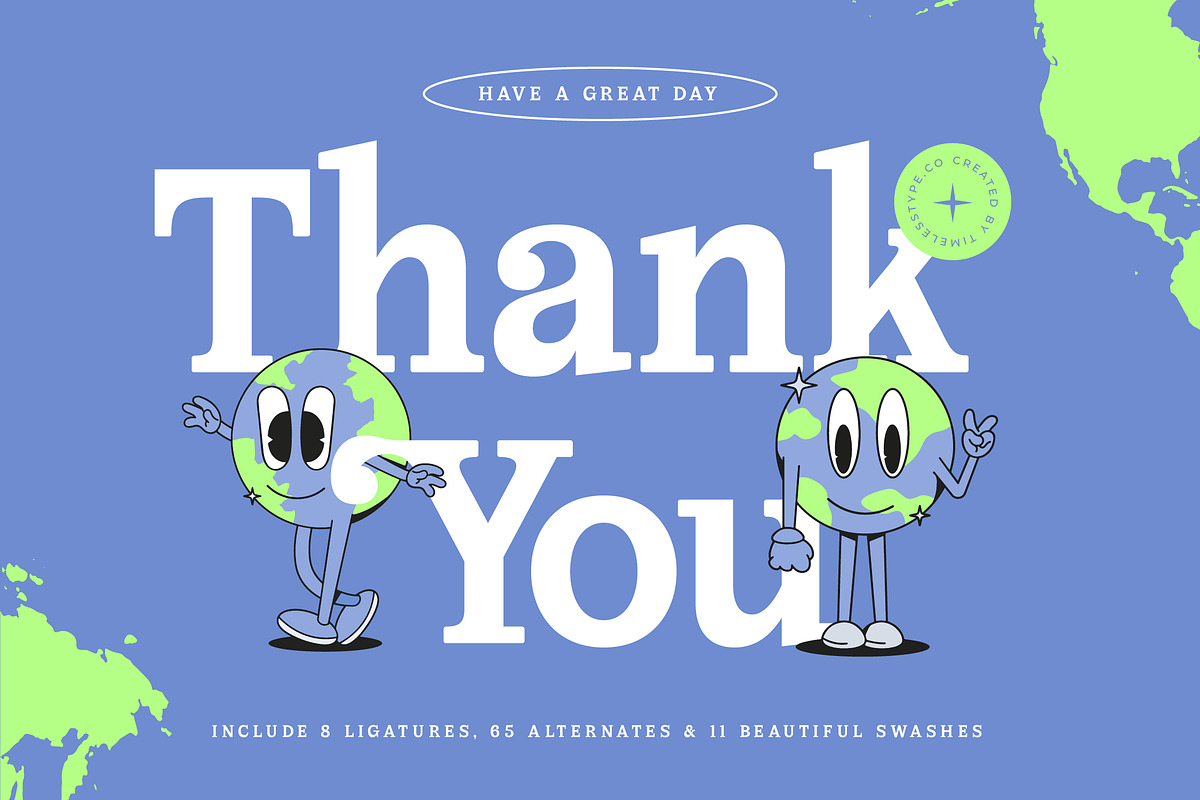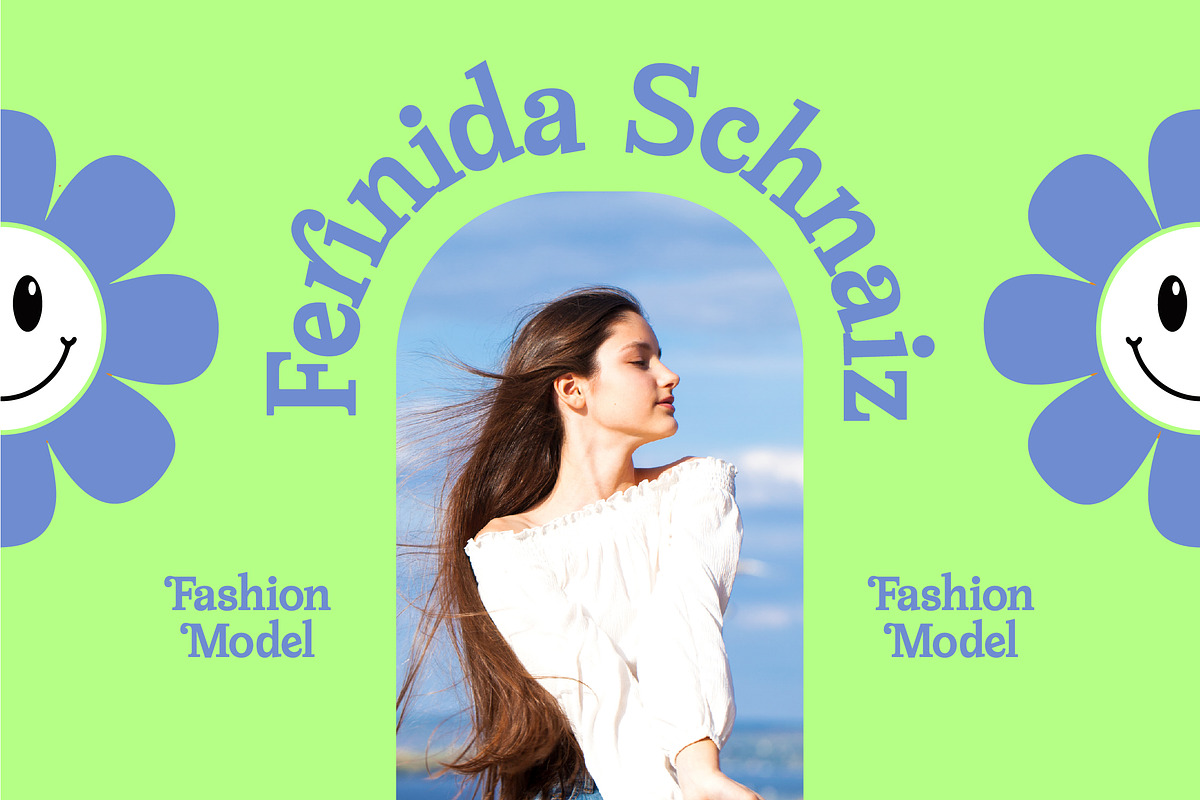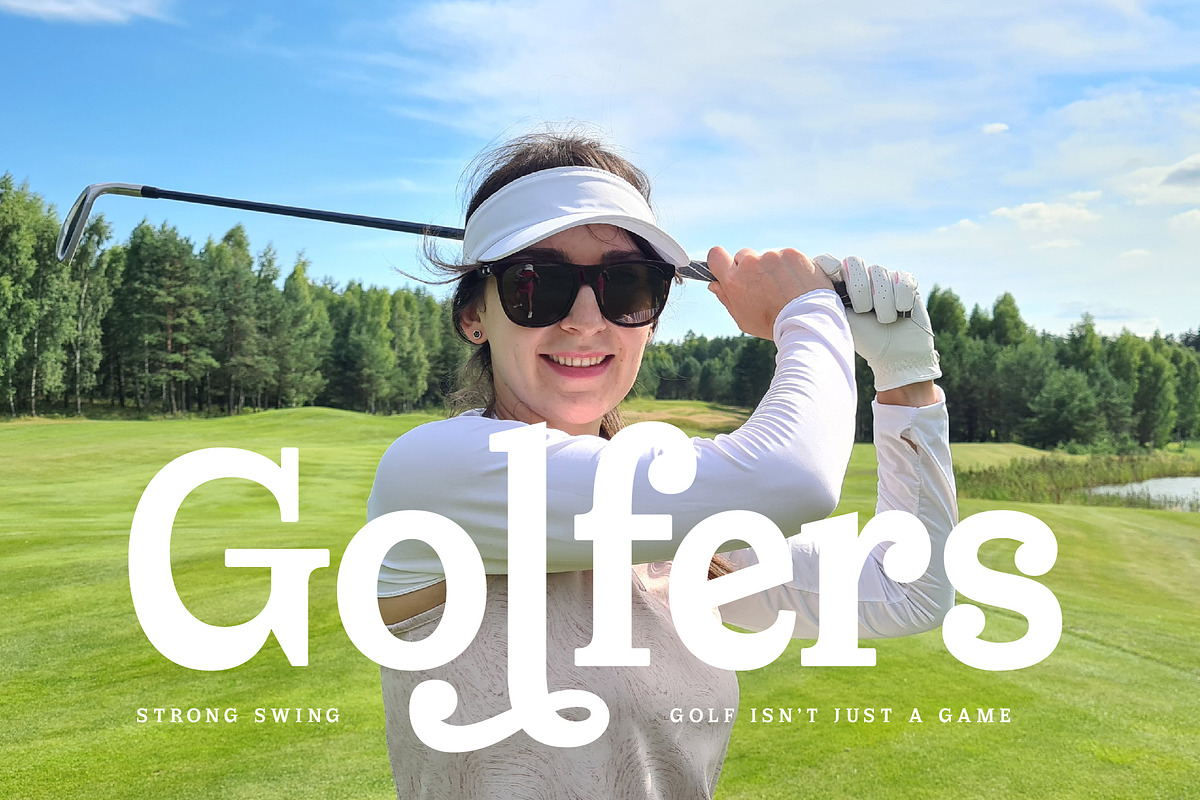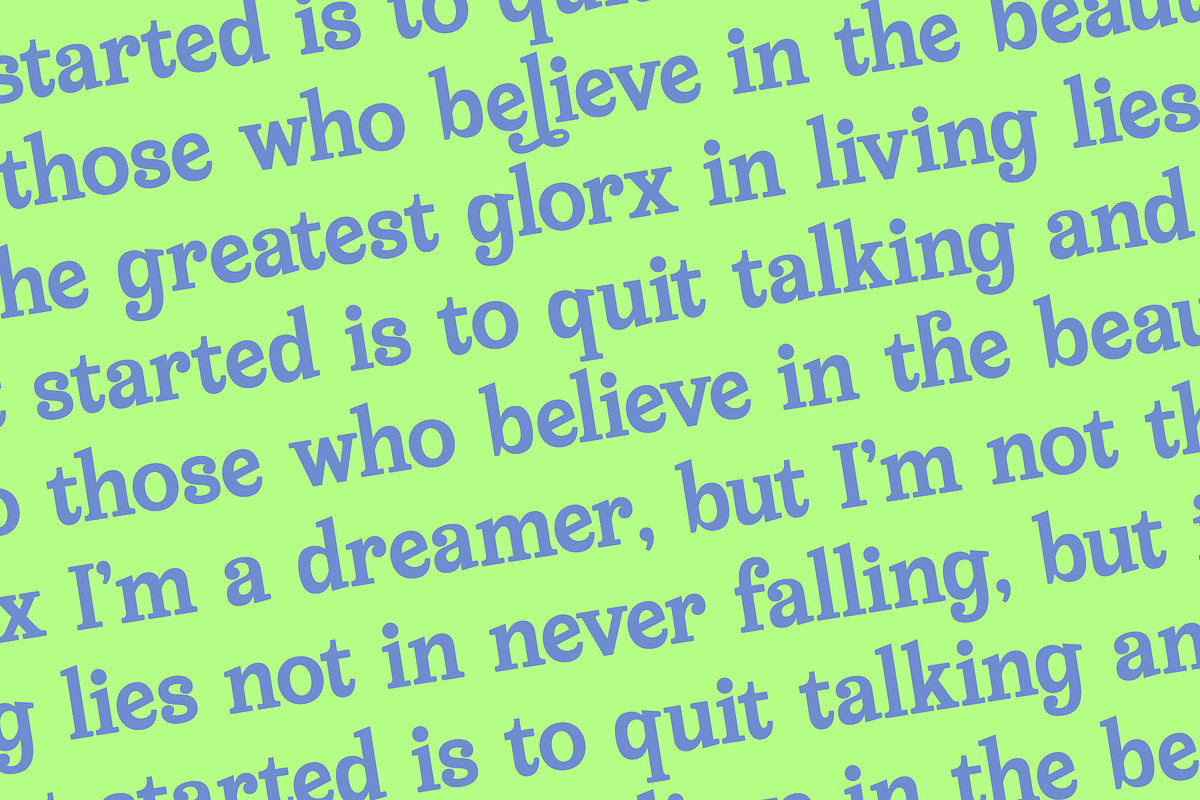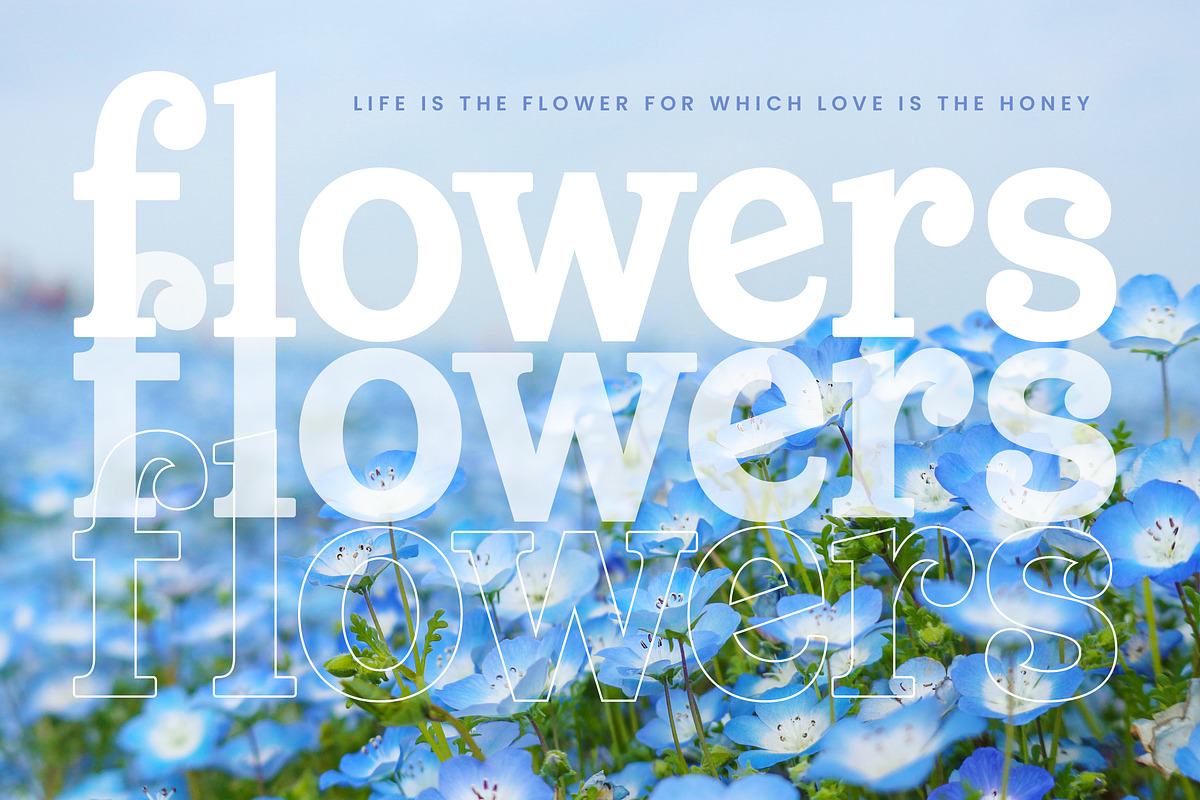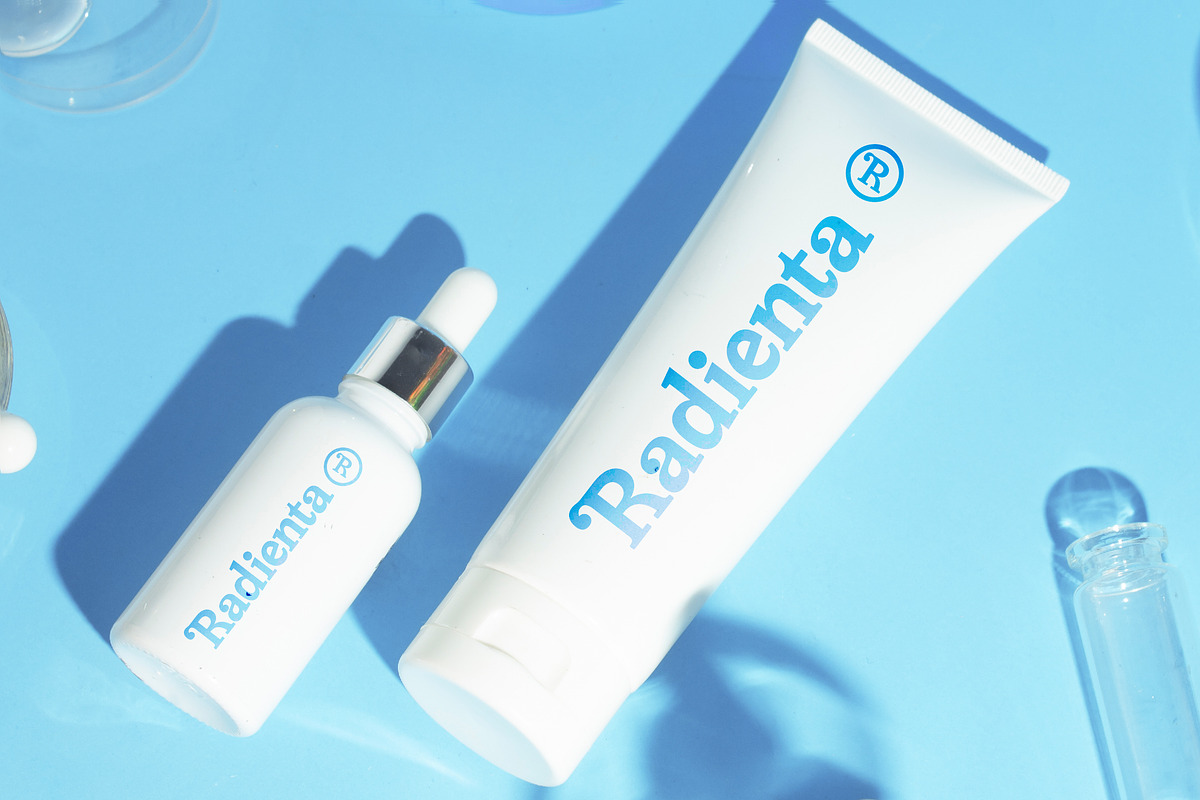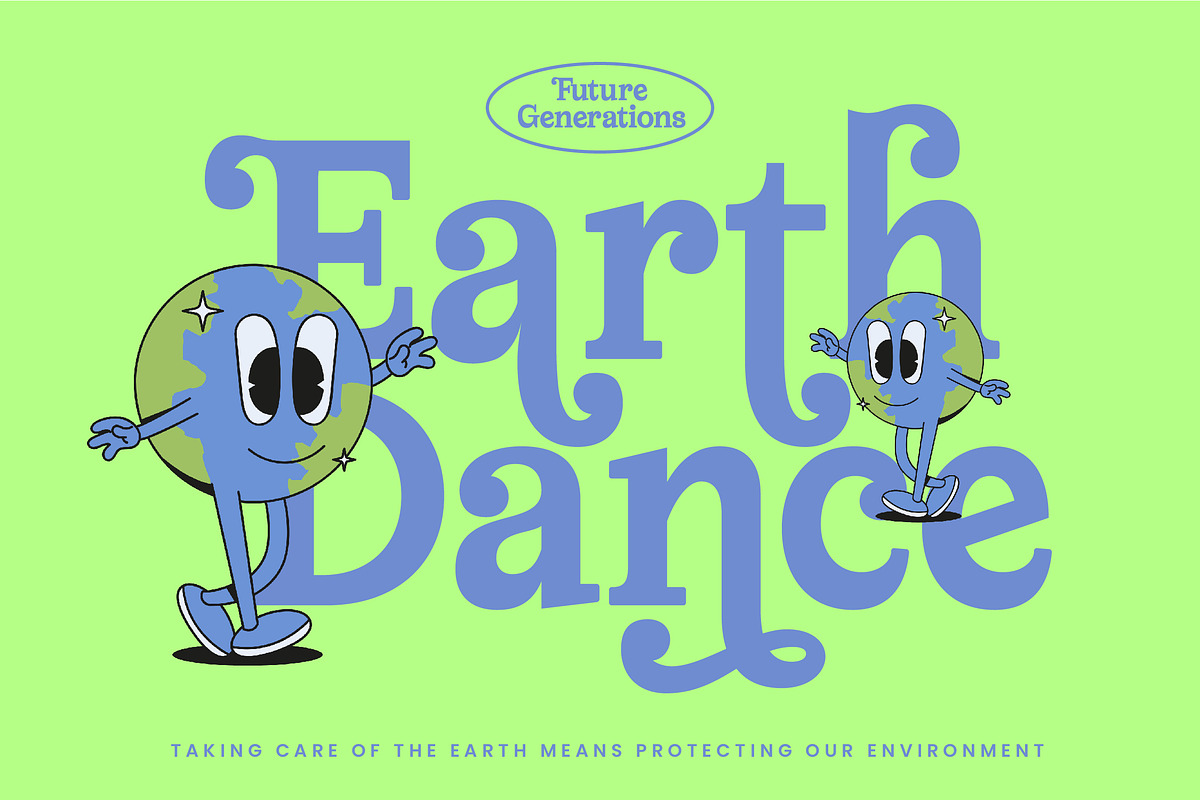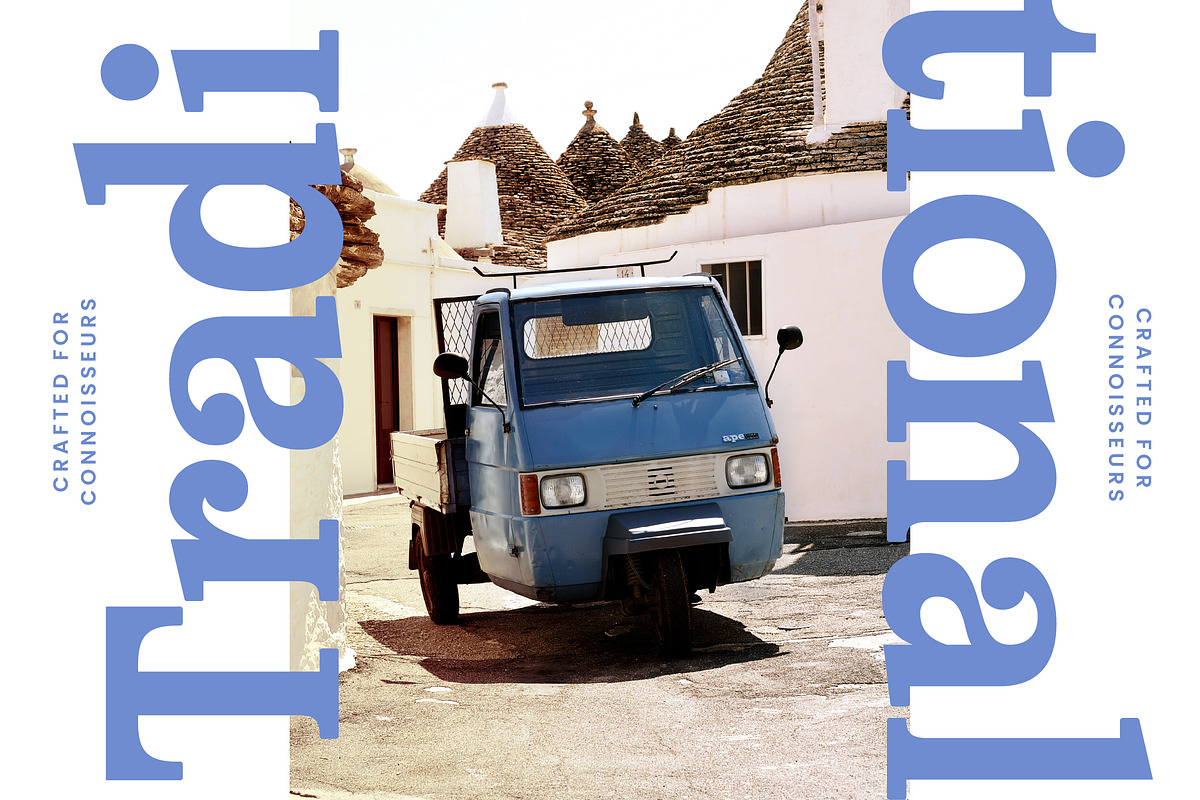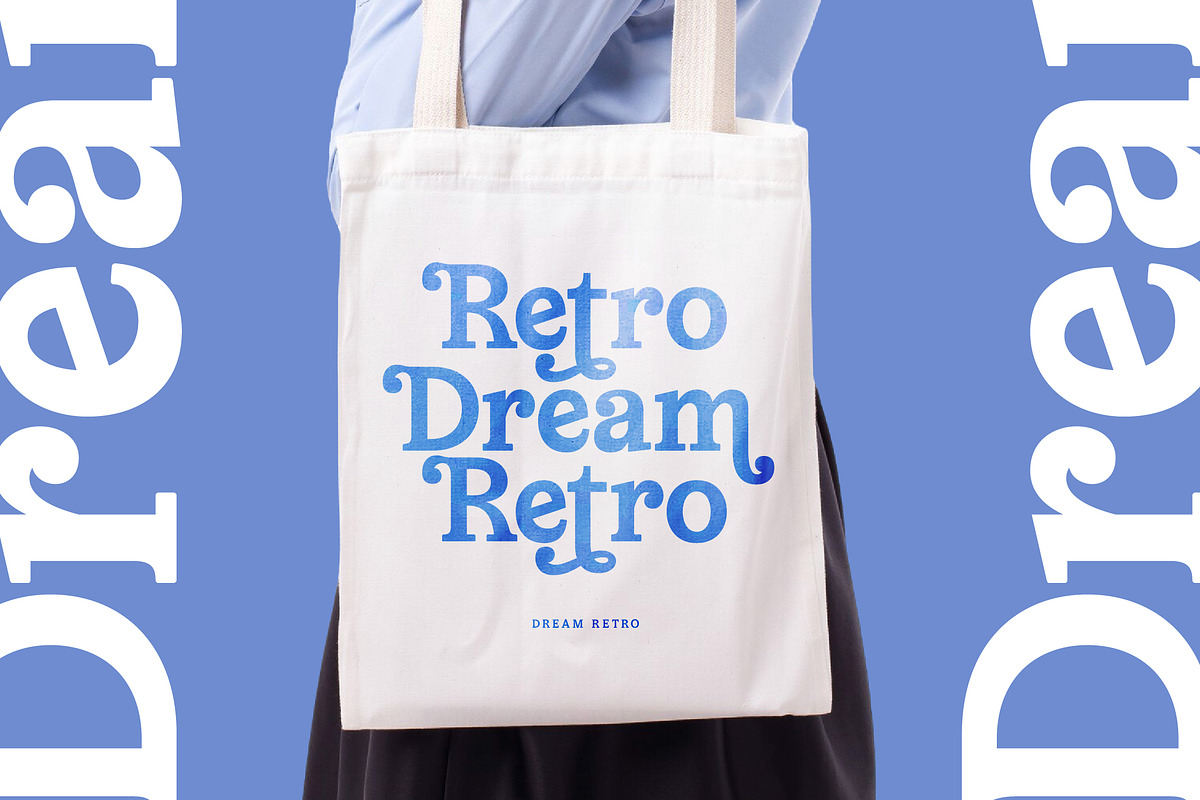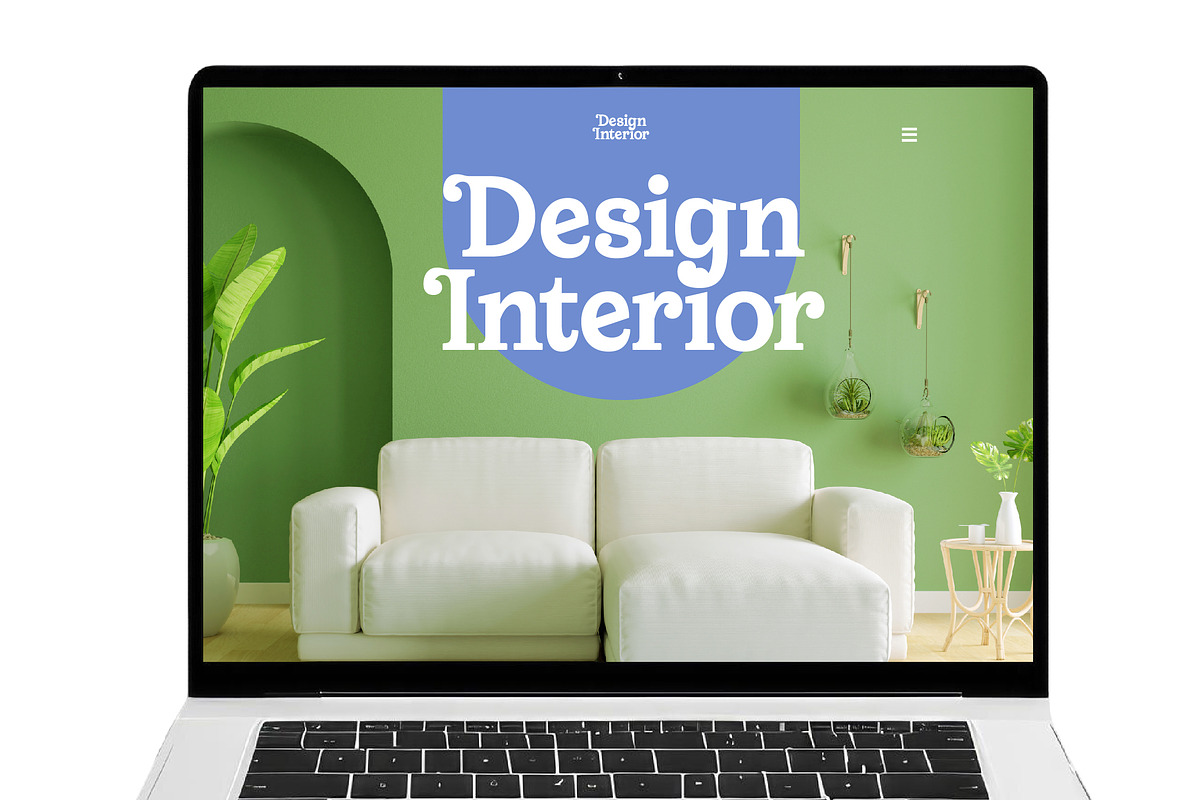
Meridi Rolitud Modern Serif Font
Meridi Rolitud is an exquisite dance of elegance and whimsy, designed to transform ordinary layouts into extraordinary visual experiences. It captures the perfect balance between classic sophistication and modern creative flair.
Inspired by the vibrant energy of retro-modernism and the organic flow of nature, this typeface tells a story of artistic freedom. The design draws from a world where playful curves meet sharp, refined edges, creating an atmosphere that is both nostalgic and futuristic.
This modern serif display is crafted for those seeking high-end luxury typography that speaks with a confident voice. With its high-contrast serif construction, it serves as a powerful editorial font that ensures your creative projects leave a lasting branding impact.
Tapping into the current modern serif trend, this typeface is a response to the growing demand for editorial display fonts that break away from the mundane. Its character-driven typography allows designers to stay ahead of the curve by offering unique swashes and playful ligatures that define contemporary aesthetics.
From sophisticated logo design and high-end branding to sleek editorial layouts, this font is incredibly versatile. It is the ideal choice for luxury packaging, romantic wedding stationery, and avant-garde fashion magazines that require a touch of personality.
This comprehensive pack includes a vast array of ligatures and alternates to give you total creative control. It also features beautiful swashes and full multilingual support with international characters, making it a robust toolkit for global design needs.